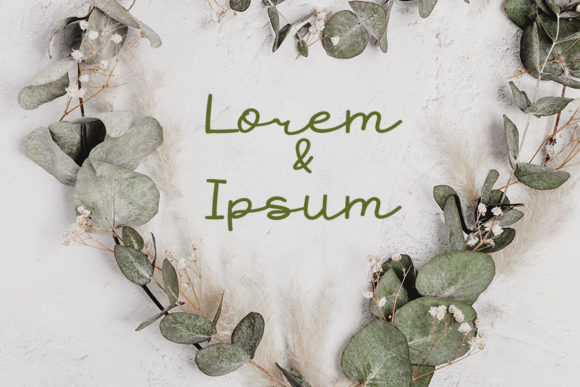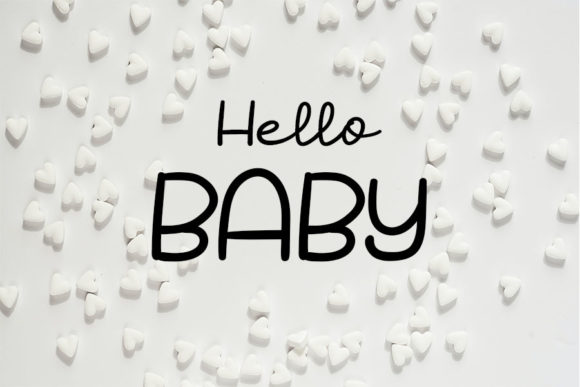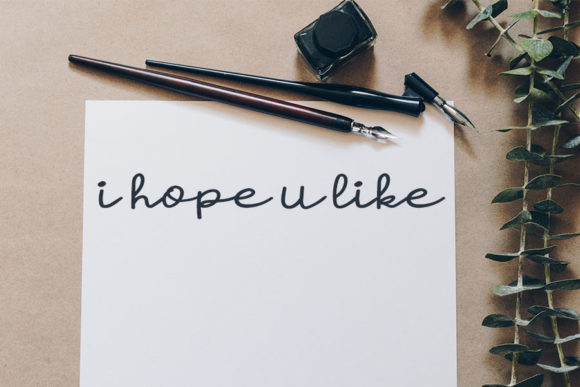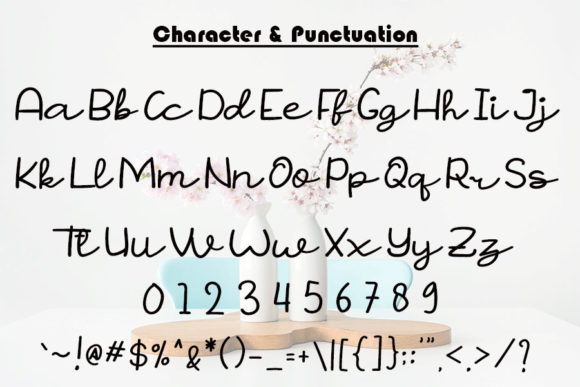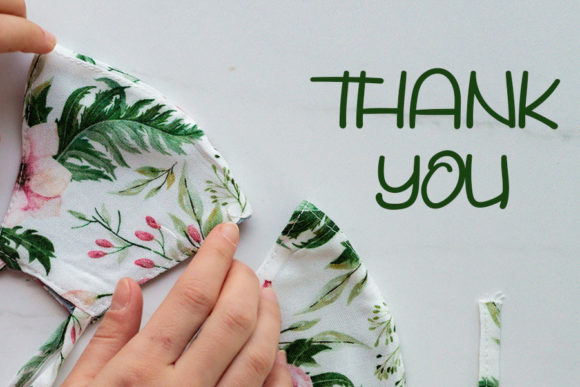
Discover the Elegance of Bahana Font
Remember the moment when you stumbled upon the perfect font to elevate your design project? It’s that feeling of excitement and satisfaction that comes with finding the perfect match for your creative vision. For designers, the search for the perfect font can be a daunting task, but what if I told you that you’ve just found it? Say hello to Bahana Font, a chic and refined script font that exudes sophistication and elegance.
Bahana Font is designed to make a statement, with its stylish alternates and ligatures adding a touch of refinement to any project. Whether you’re working on a luxury brand, a wedding invitation, or a high-end brochure, Bahana Font is the perfect choice to convey your message with style and poise. As a designer, you know how valuable it is to have a versatile font that can elevate your work, and Bahana Font is sure to become a trusted companion in your creative journey.
- Unique Characteristics: Bahana Font features a unique blend of modern and traditional design elements, with a focus on elegance and sophistication, making it suitable for a wide range of design applications.
Bahana Font Review
I’ve had the chance to work with the Bahana font, and I must say, it’s a unique addition to any design project. ✨ One of its strongest points is its versatility – it’s suitable for both body text and headings, making it a great choice for a wide range of applications.
- ✨ The font’s curves and lines work well together to create a friendly, approachable feel.
- ✨ The Bahana font supports multiple languages, making it a great choice for multilingual projects.
However, like any font, Bahana has its limitations. ⚠️ One of the main concerns is its readability at smaller font sizes – it can become difficult to read, especially in print materials.
- ⚠️ The font’s weight distribution can be inconsistent at times, affecting its overall aesthetic.
- ⚠️ Some characters may not be as well-designed as others, which can impact the overall quality of the font.
Overall, the Bahana font is a solid choice for designers looking for a unique, friendly font. While it may have its limitations, its versatility and friendly feel make it a great addition to any design project.
Tips for Getting the Most Out of Bahana Font
The Bahana font is a versatile and modern font that works well in a variety of applications. Here are some tips for getting the most out of it:
- Use the Bahana font for headings and titles to add a touch of elegance.
- Pair the Bahana font with other modern fonts to create a unique and stylish look.
- Experiment with different font sizes and colors to add emphasis and visual interest.
The Bahana font is commonly used in:
- Graphic design and branding projects.
- Web design and development projects.
- Print design and marketing materials.
Alternatives to Bahana Font
Great Vibes is a modern script font ideal for creating a playful and casual atmosphere. It is perfect for headings, titles, and any design element that requires a touch of elegance and sophistication.
Compared to Bahana Font, Great Vibes has a more refined and polished look, making it suitable for a wide range of design projects. While Bahana Font is more whimsical, Great Vibes is more versatile and adaptable.
Dancing Script is a beautiful, elegant script font that adds a touch of sophistication and glamour to any design. It is perfect for titles, headings, and any element that requires a sense of luxury and refinement.